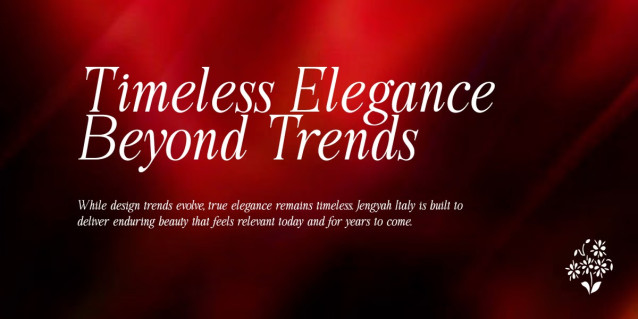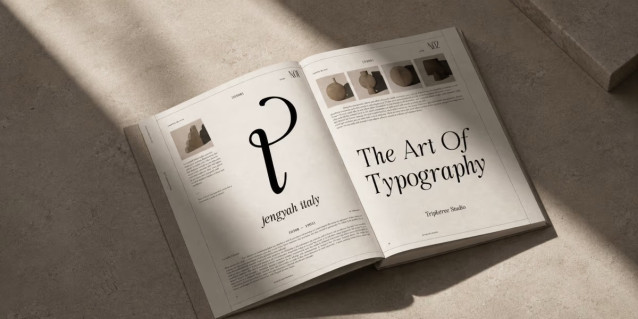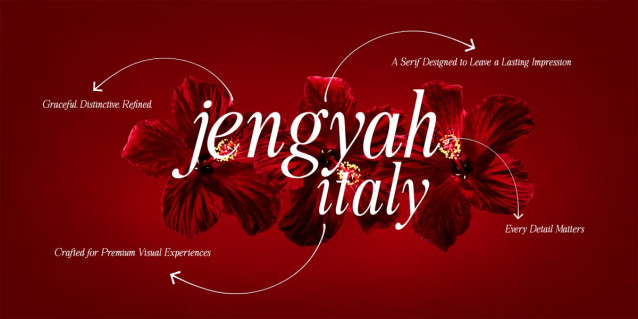
JengYah Font
JengYah Font is an elegant serif typeface designed for creators who appreciate timeless beauty and sophisticated typography. Featuring refined letterforms, graceful curves, and balanced proportions, the font delivers a classic luxurious aesthetic with a modern touch. Perfect for wedding invitations, branding, editorial layouts, logos, and premium design projects, JengYah brings charm, class, and elegance to every composition while maintaining a clean and stylish visual presence.